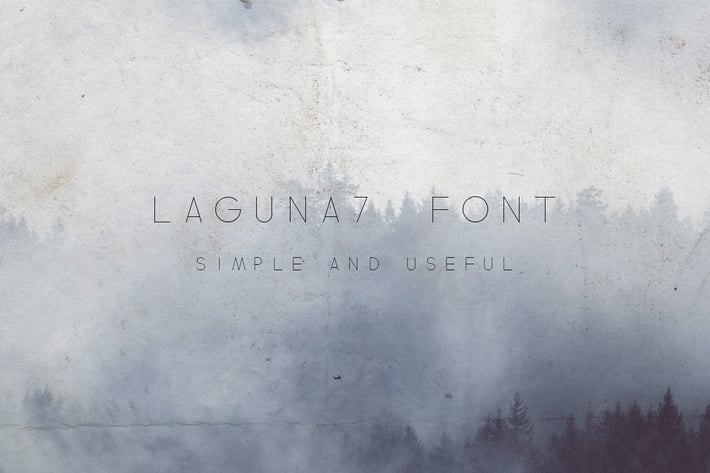
Laguna7 Font
This font is intended for use in branding, advertising, typography posters, etc. It’s simple monospaced font in OpenType format, which includes:
-Letters ABCDEFGHIJKLMNOPQRSTUVWXYZabcdefghijklmnopqrstuvwxyz
-Numbers 1234567890
-Glyphs ~!#$ ^x%x *()[]{}\|:;”’,.?/+-_=% and others